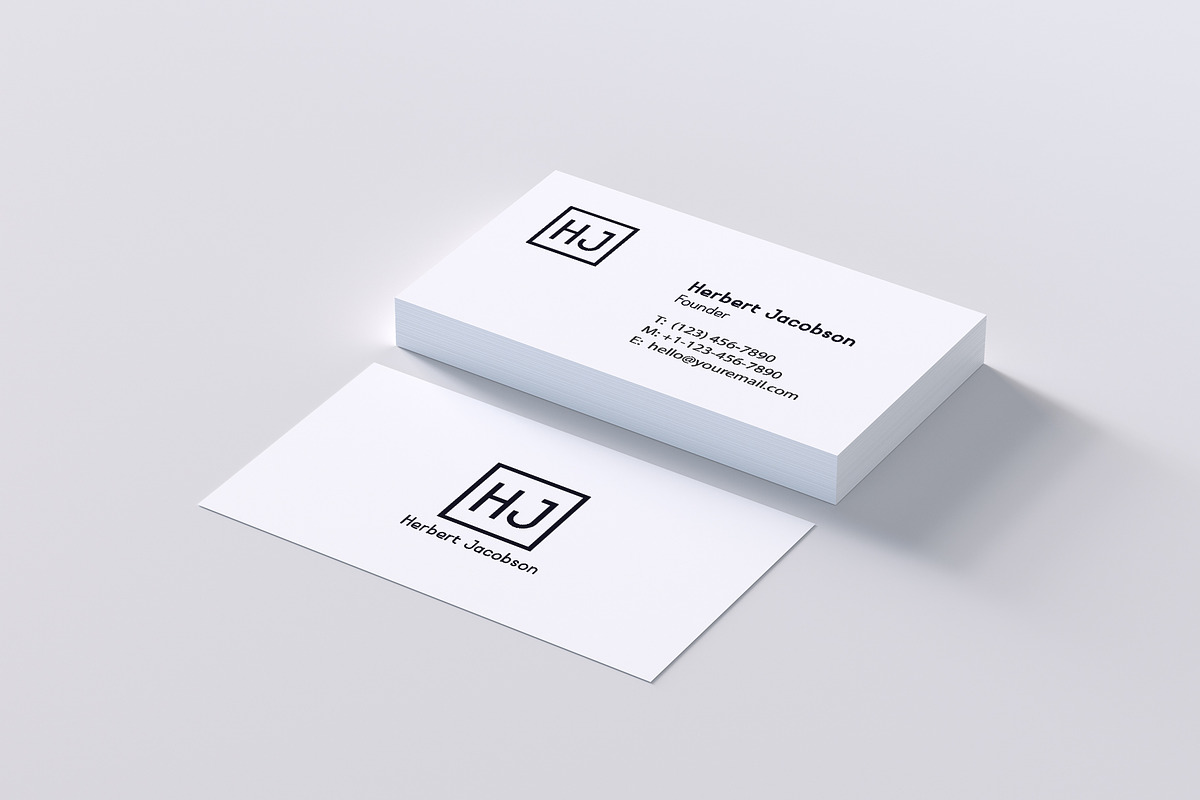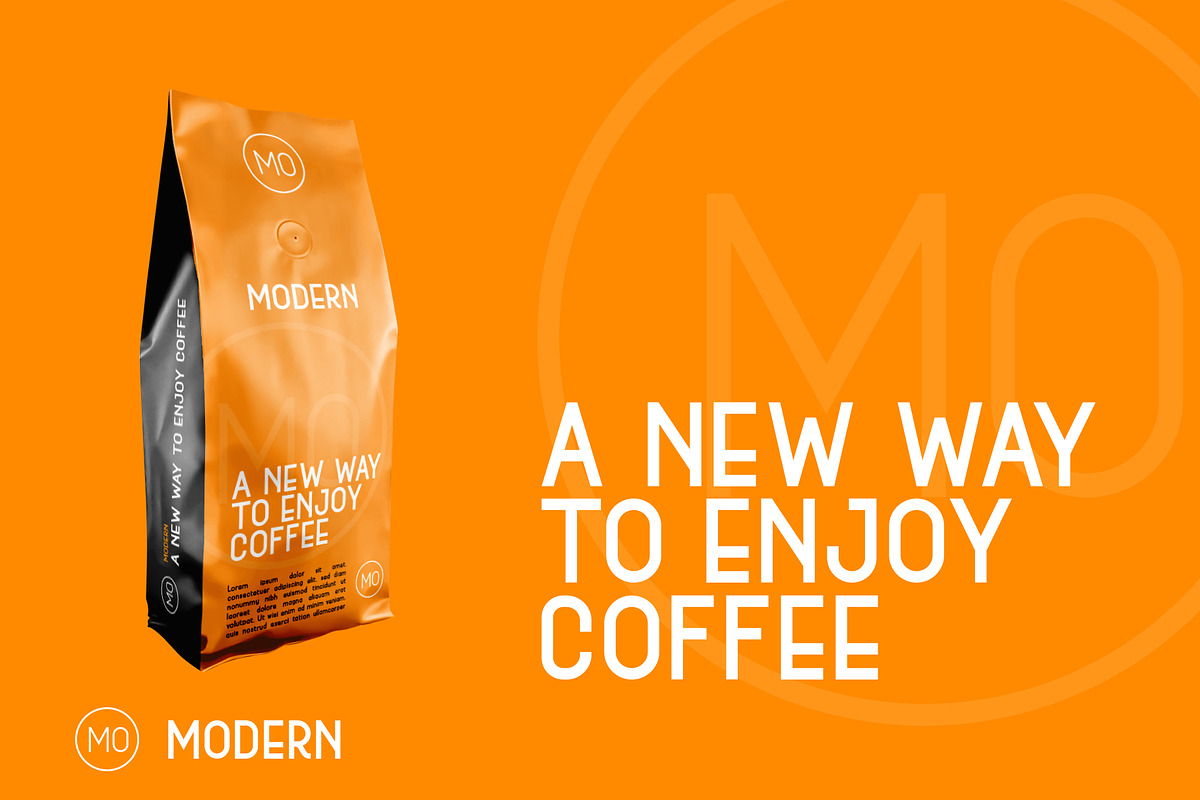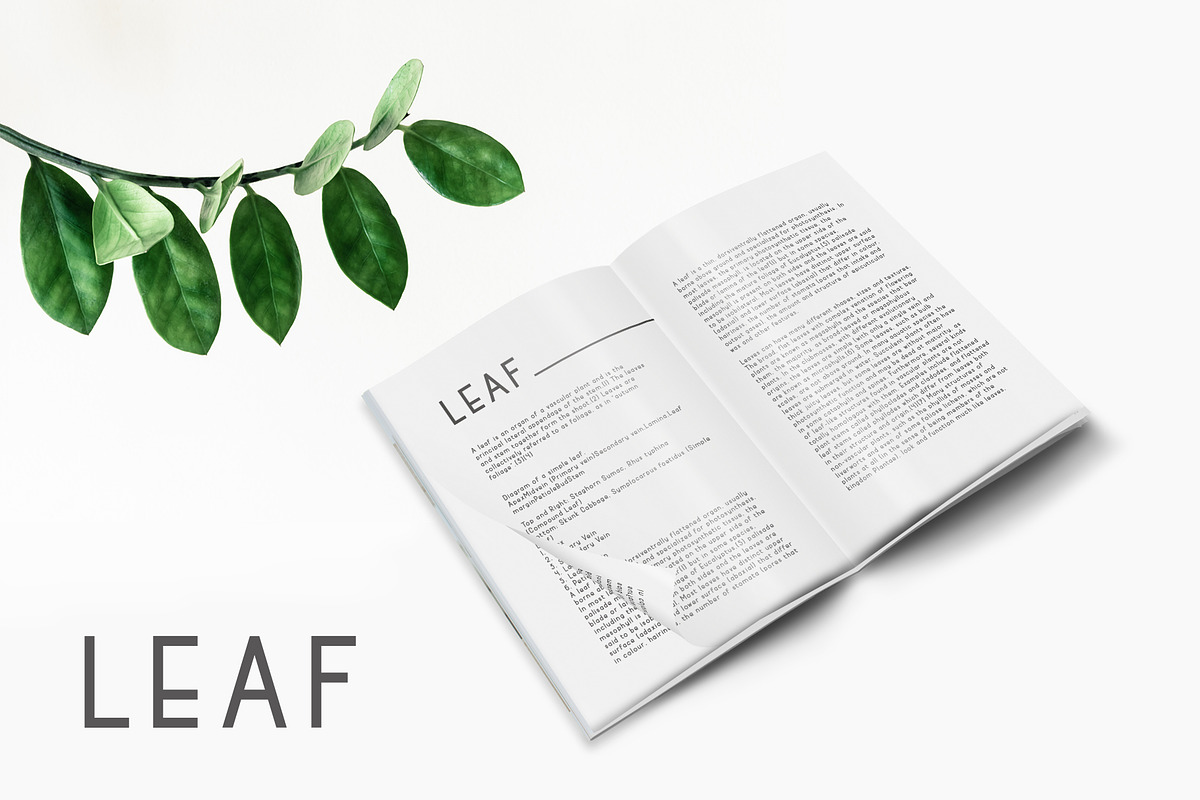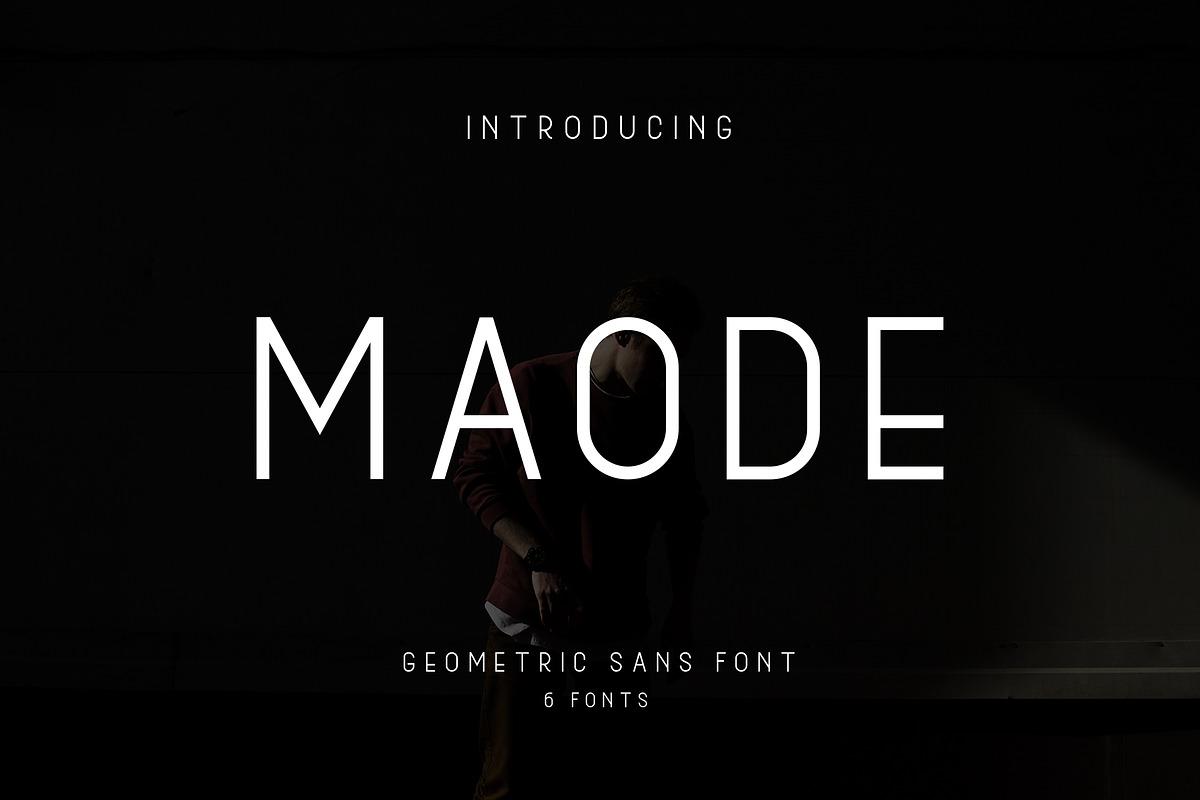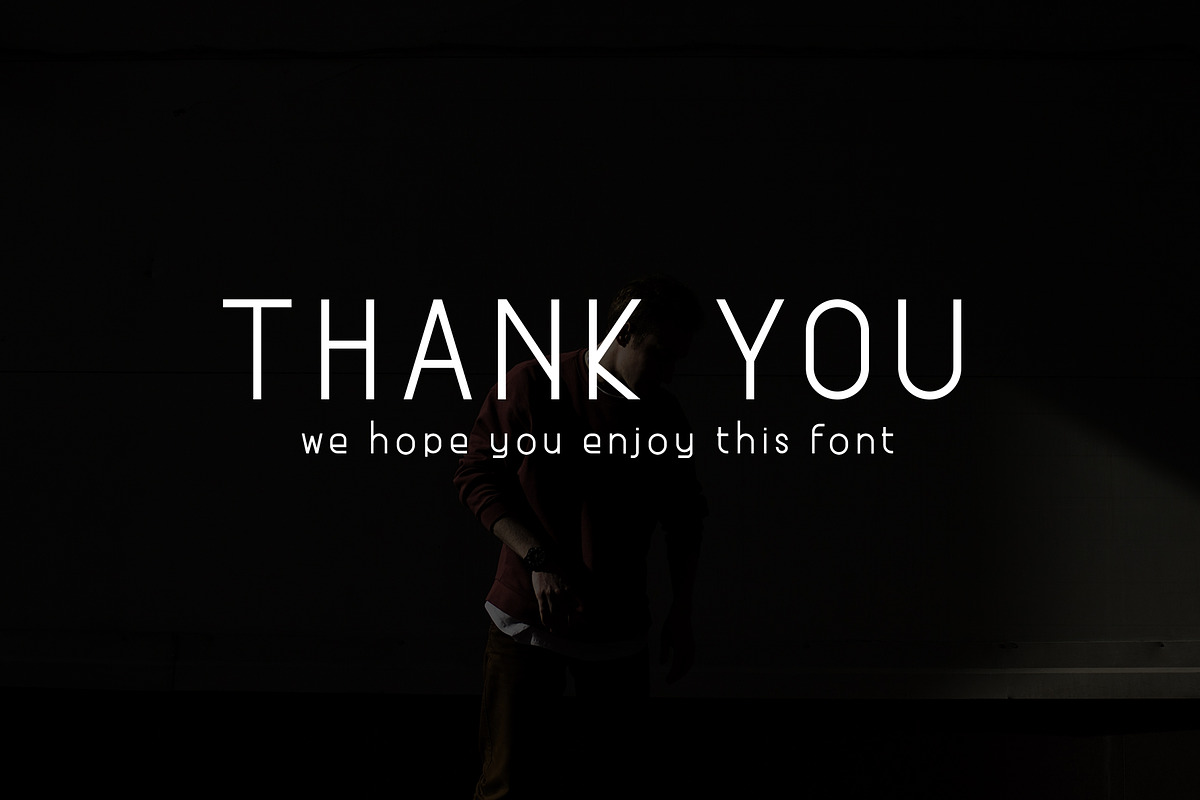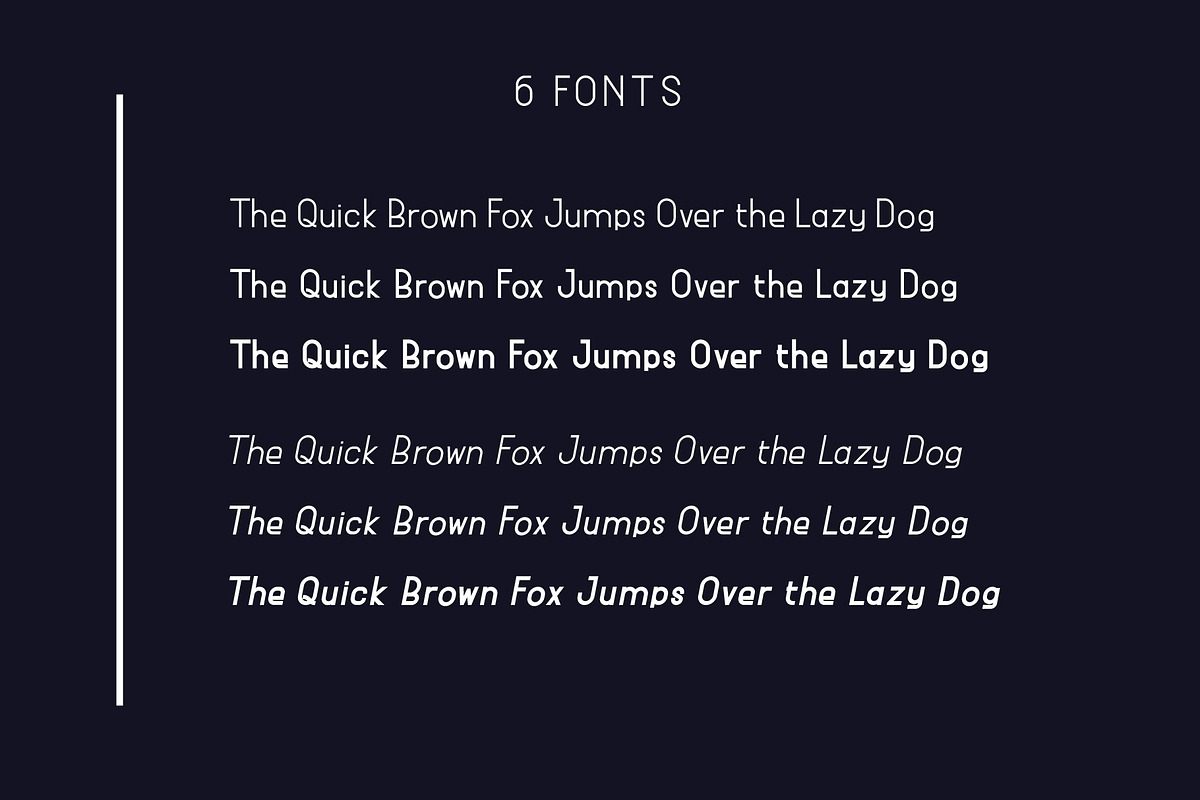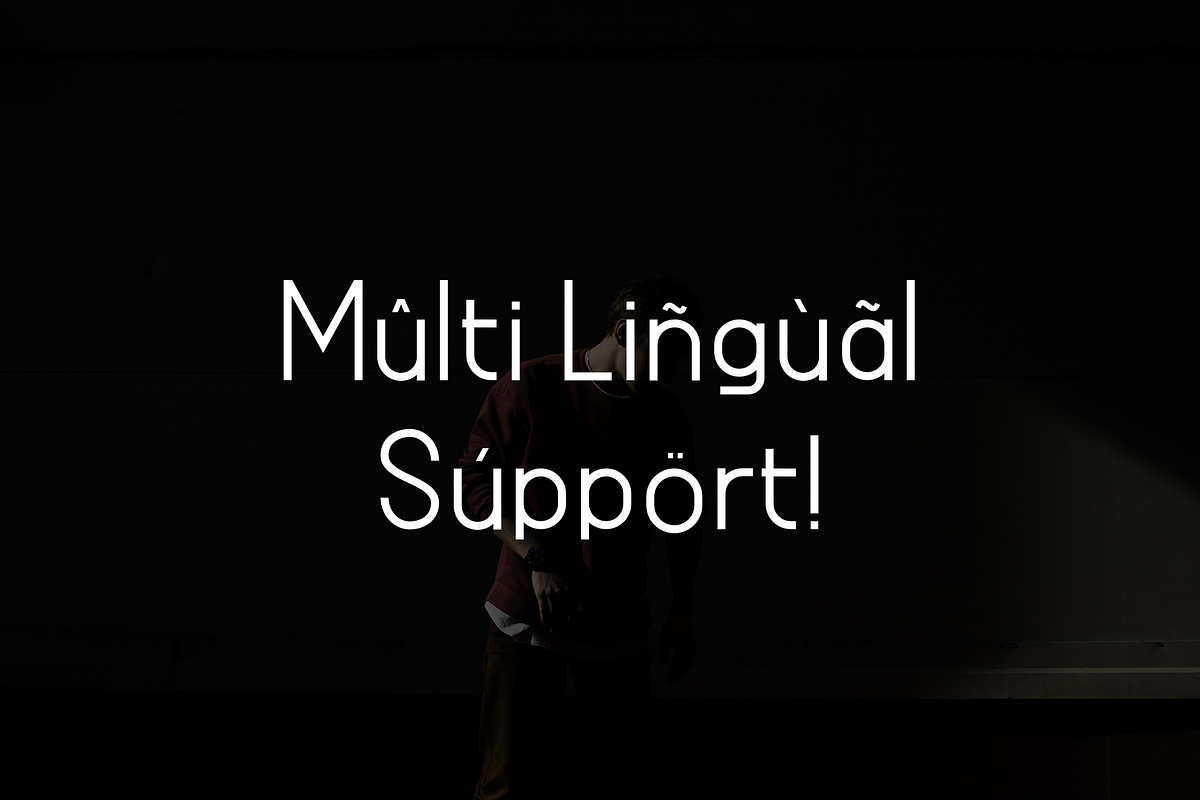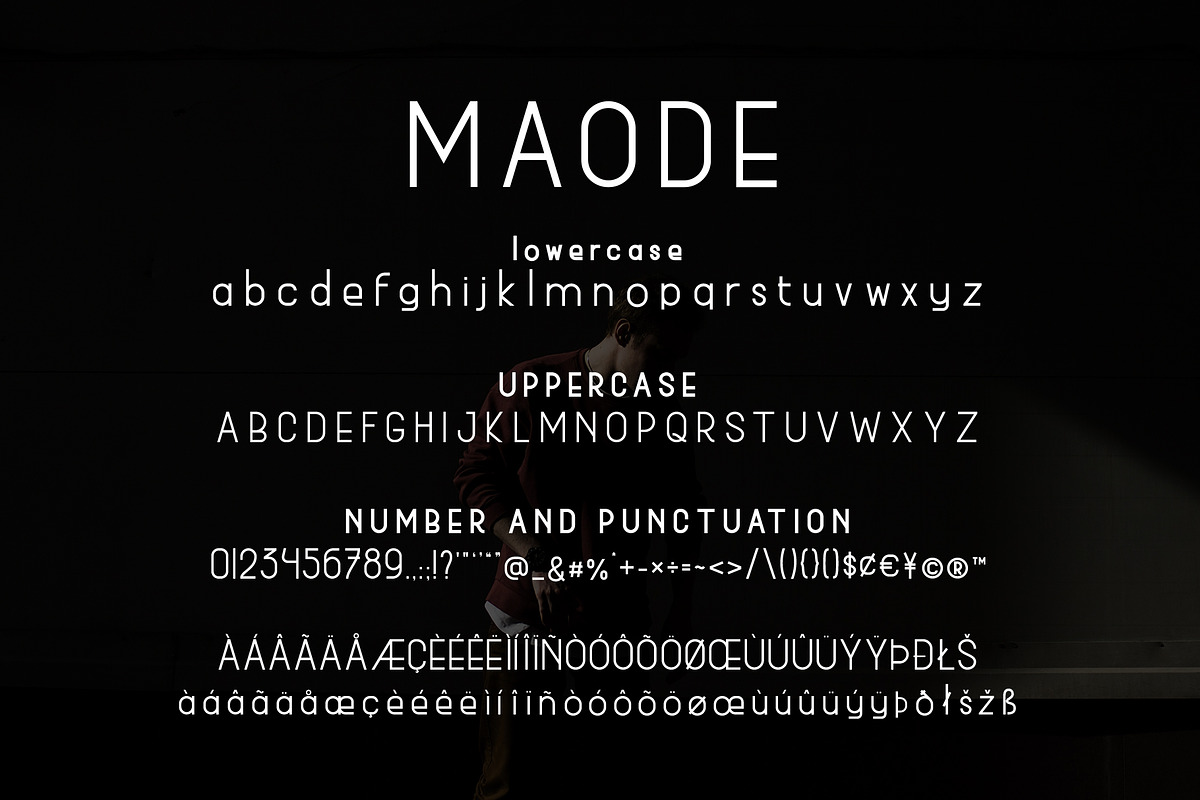
Maode
Maode is a sans font with a simple and classy style, this font is great for your next creative projects such as logo design, quotes, album cover, business card, and many other design project.
Maode comes with uppercase letters, lowercase letters, numbers, punctuation and multi lingual support